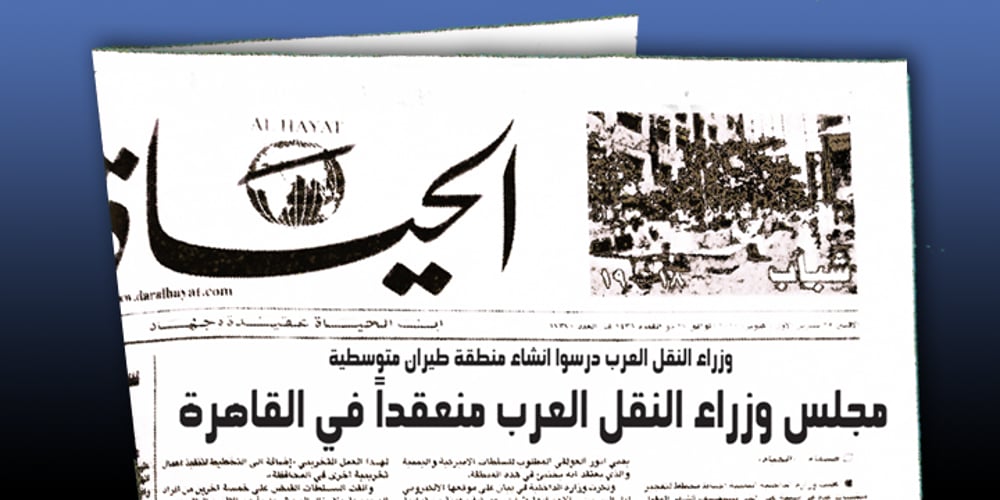
Avesta Extra Bold
Avesta Extra Bold font
Avesta Extra Bold Font Family was designed by Naghi Naghashian and published by Naghi Naghachian. Avesta Extra Bold contains 1 styles and family package options. Avesta ExtraBoldCondensed is designed by Naghi Naghashian. This Headline Font is developed on the basis of specific research and analysis on Arabic characters and definition of their structure. This innovation is a contribution to modernisation of Arabic typography, gives the font design of Arabic letters real typographic arrangement and provides more typographic flexibility. This step was necessary after more than two hundred years of relative stagnation in Arabic font design. Avesta supports Arabic, Persian, and Urdu. It also includes proportional and tabular numerals for the supported languages. Avesta Font is available in ExtraBoldCondensed. This font is designed to be used as advertising and newspaper headlines. Avesta design fulfills the following needs: A Explicitly crafted for use in electronic media fulfills the demands of electronic communication. Avesta is not based on any pre-digital typefaces. It is not a revival. Rather, its forms were created with today’s technology in mind. B Suitability for multiple applications. Gives the widest potential acceptability. C Extreme legibility not only in small sizes, but also when the type is filtered or skewed, e.g., in Photoshop or Illustrator. Avesta’s simplified forms may be artificial obliqued in InDesign or Illustrator, without any loss in quality for the effected text. D An attractive typographic image. Avesta was developed for multiple languages and writing conventions. E The highest degree of geometric clarity and the necessary amount of calligraphic references. This typeface offers a fine balance between calligraphic tradition and the contemporary sans serif aesthetic now common in Latin typography.